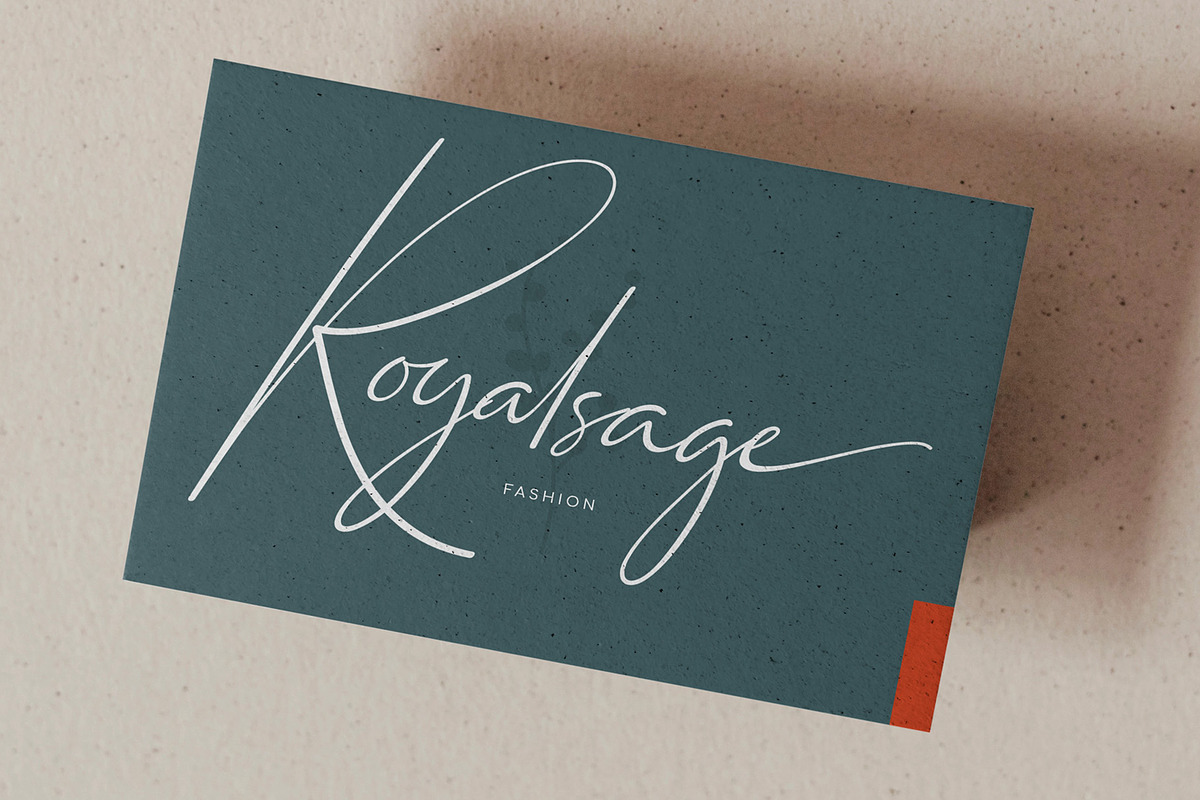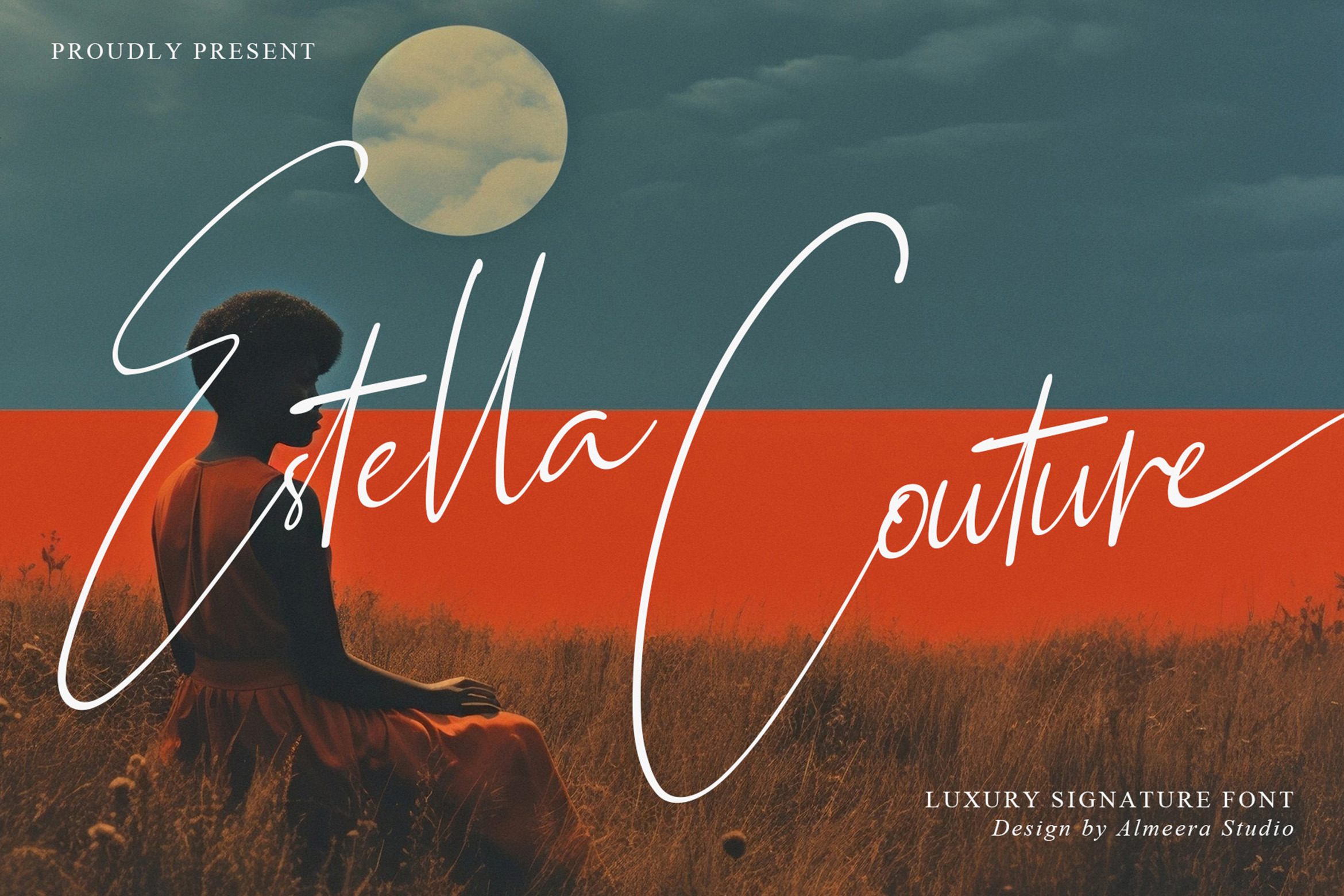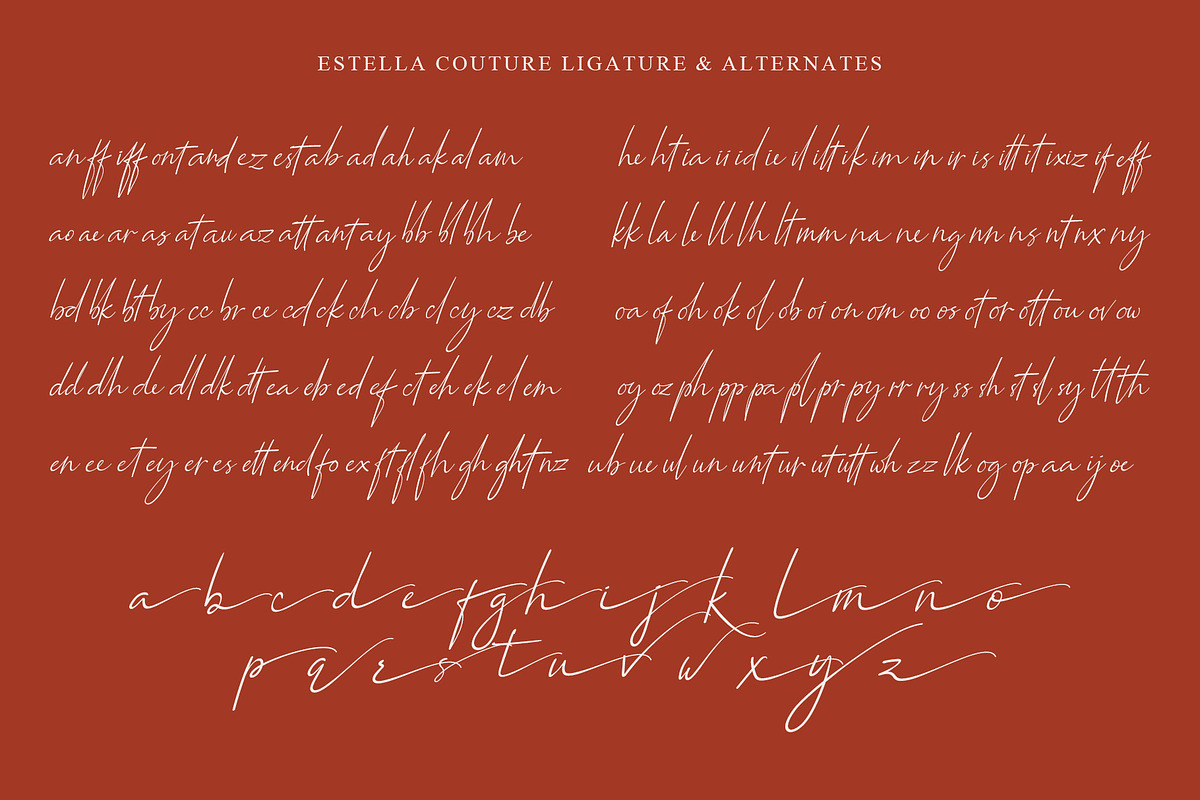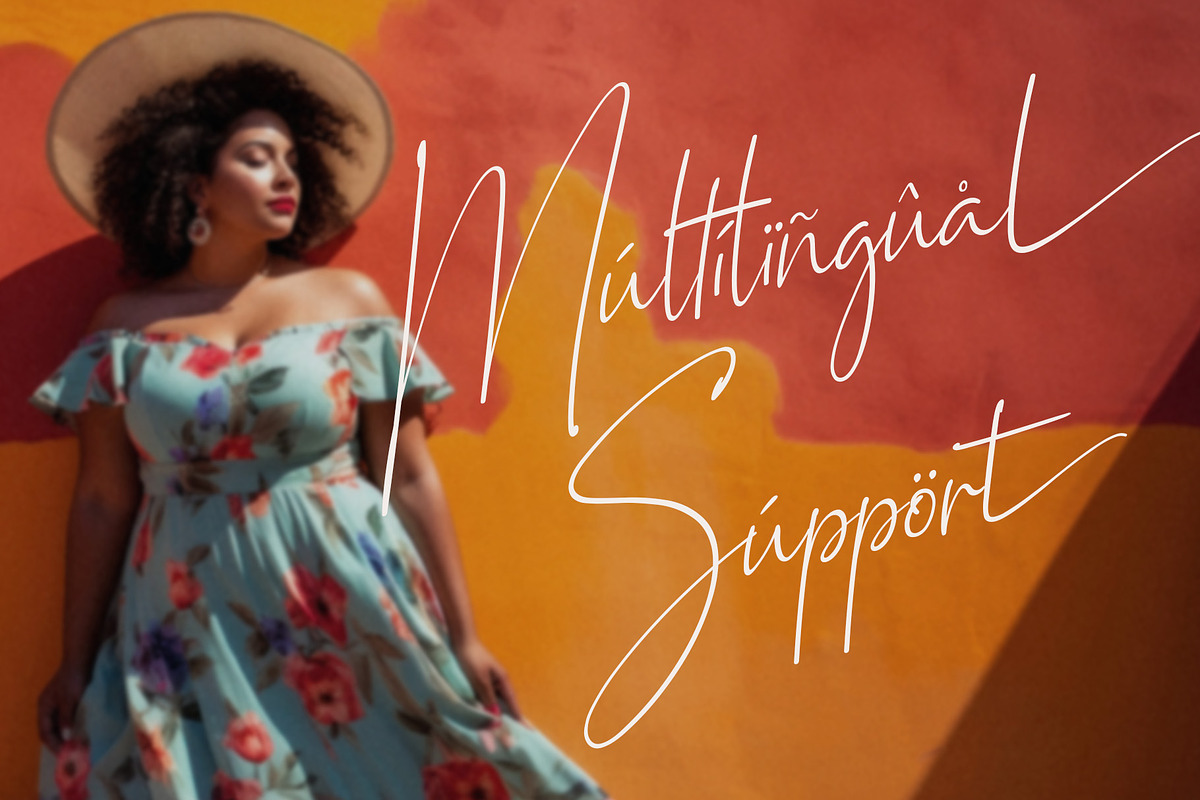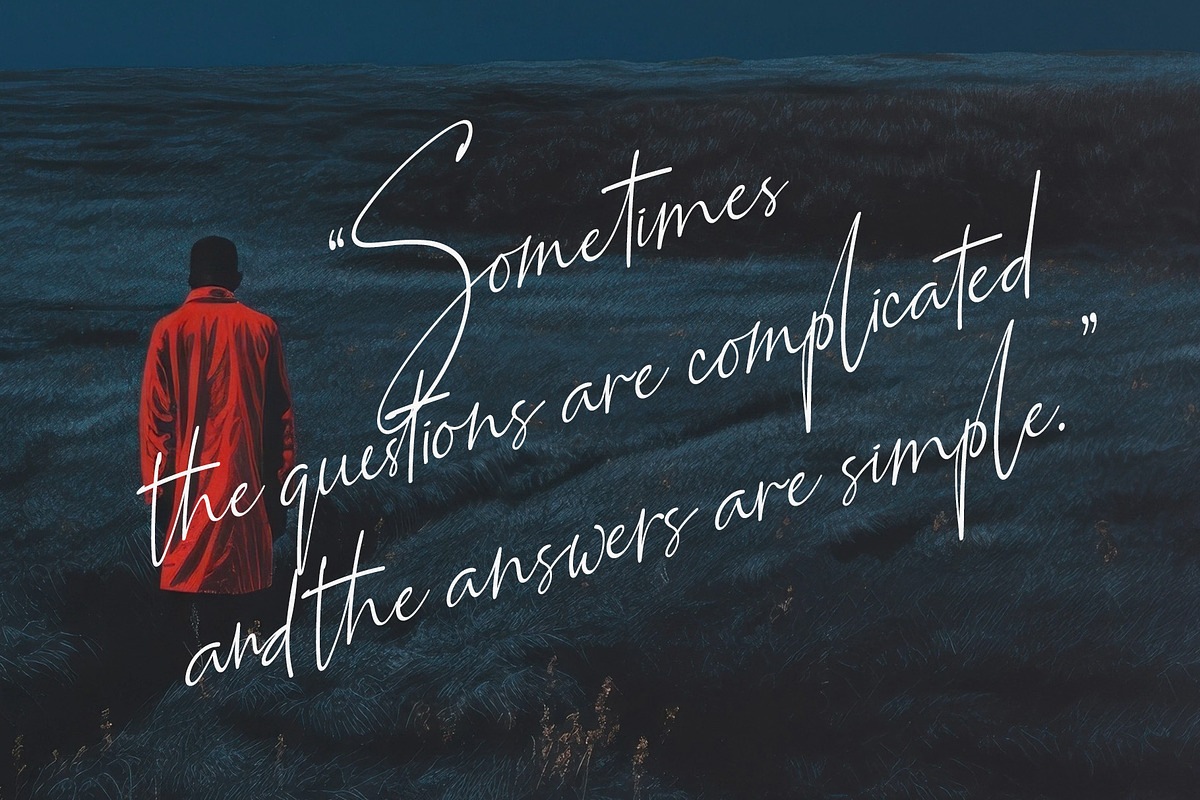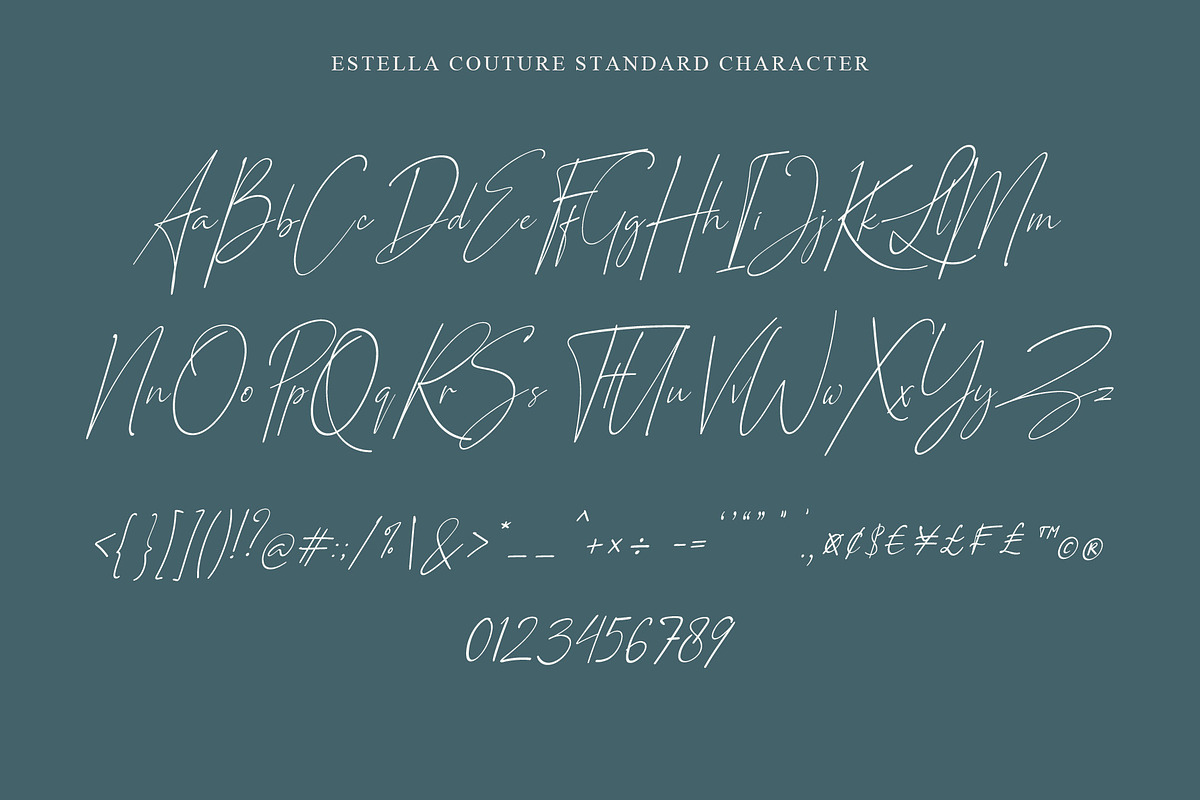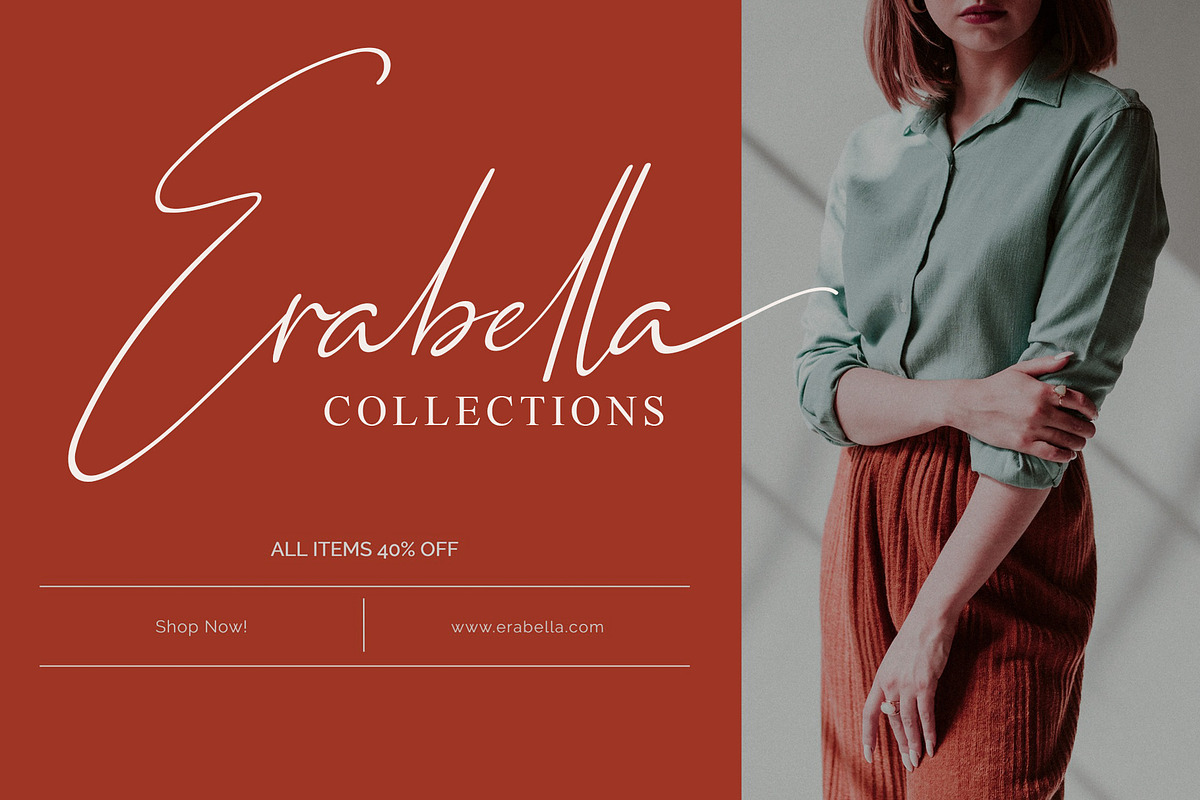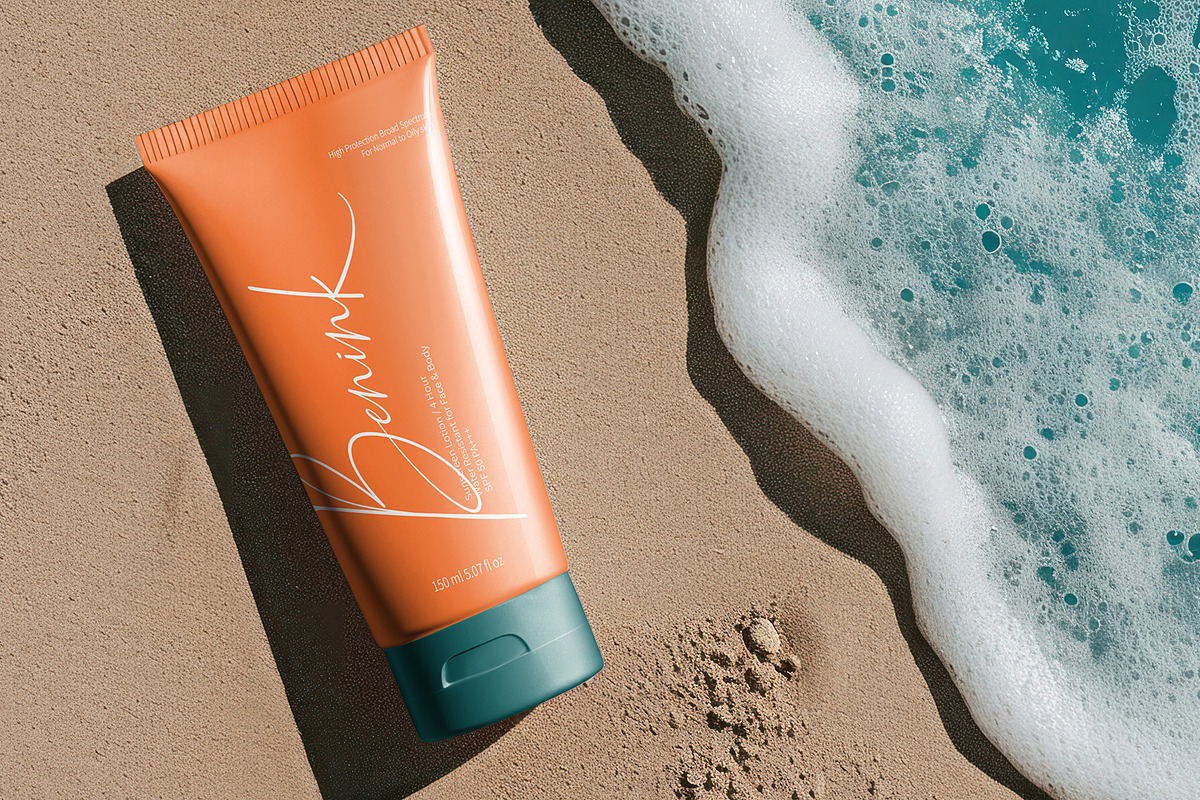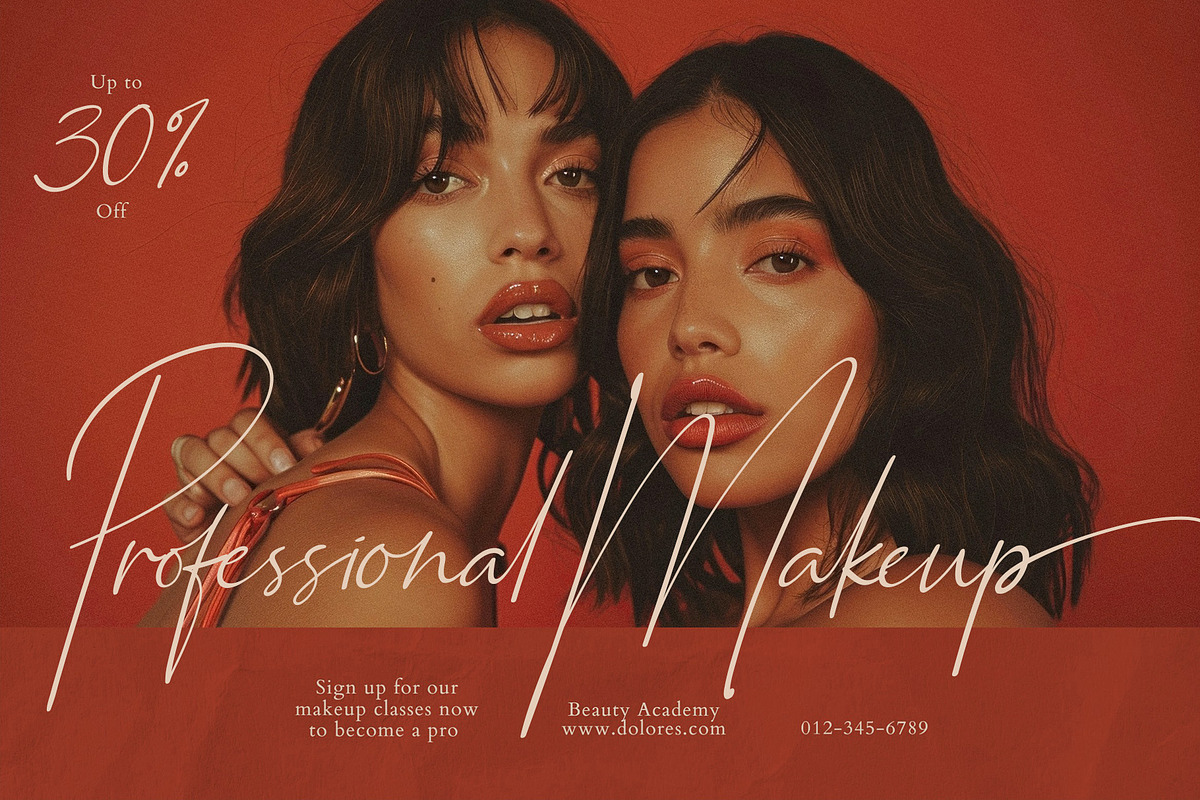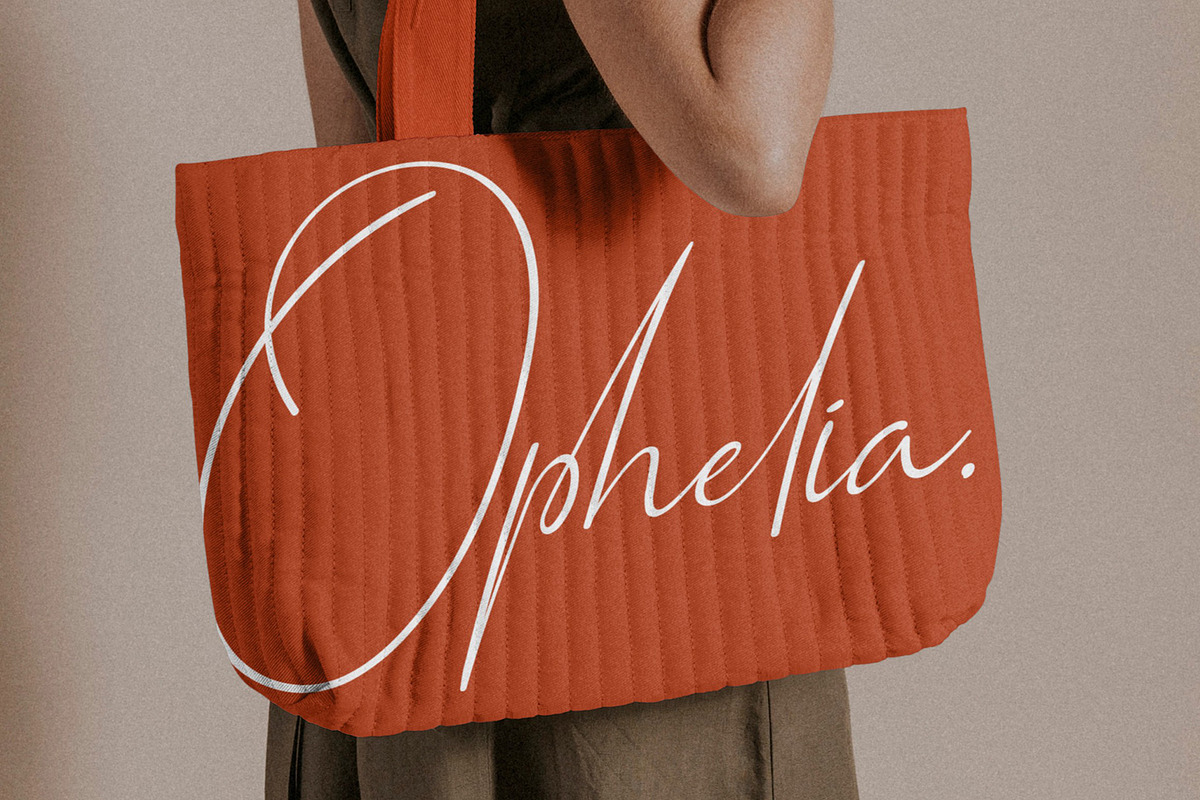
Estella Couture - Signature Font
Introducing Estella Couture - Luxury Signature Font, a sophisticated calligraphy font that exudes luxury and grace, making it the ideal choice for elegant logos, wedding invitations, photography branding, modern websites, and more. This font comes beautifully enhanced with stylish ligatures and delicate swashes at the beginning and end of lowercase letters, giving your designs that perfect, personalized handwritten touch. Whether you're creating timeless wedding stationery or adding a touch of elegance to your brand, Estella Couture brings unmatched beauty and refinement to every project.